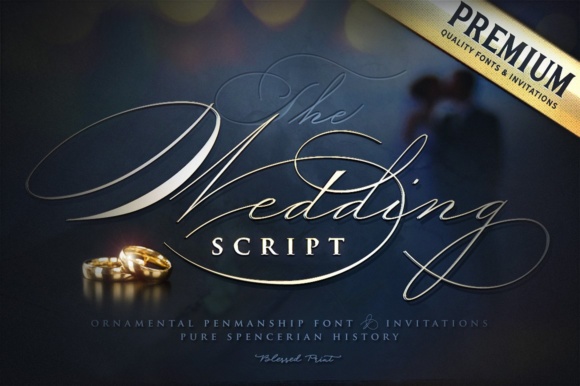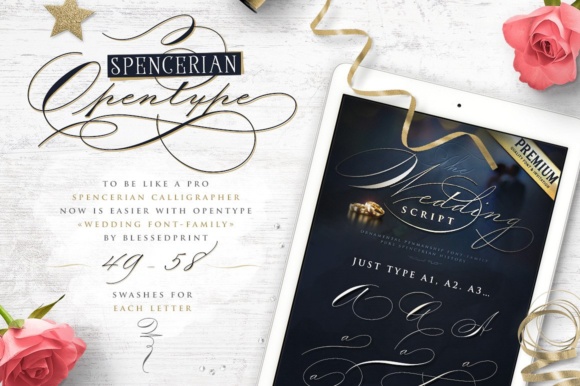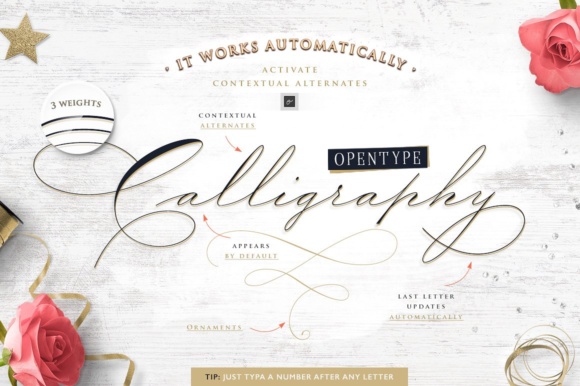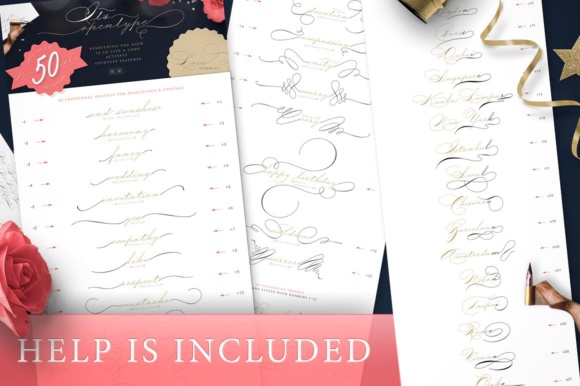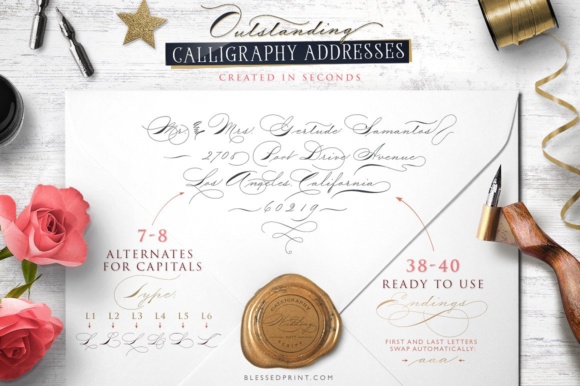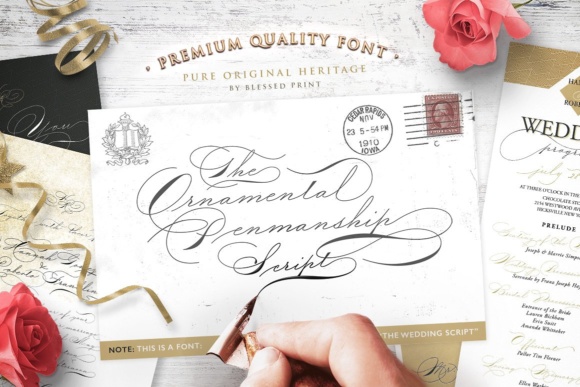
Wedding Script Font
About Wedding Script Font
The Wedding Script is a gorgeously ornamented font which is elegant and striking. It is perfect for wedding invitations, menus and logos.